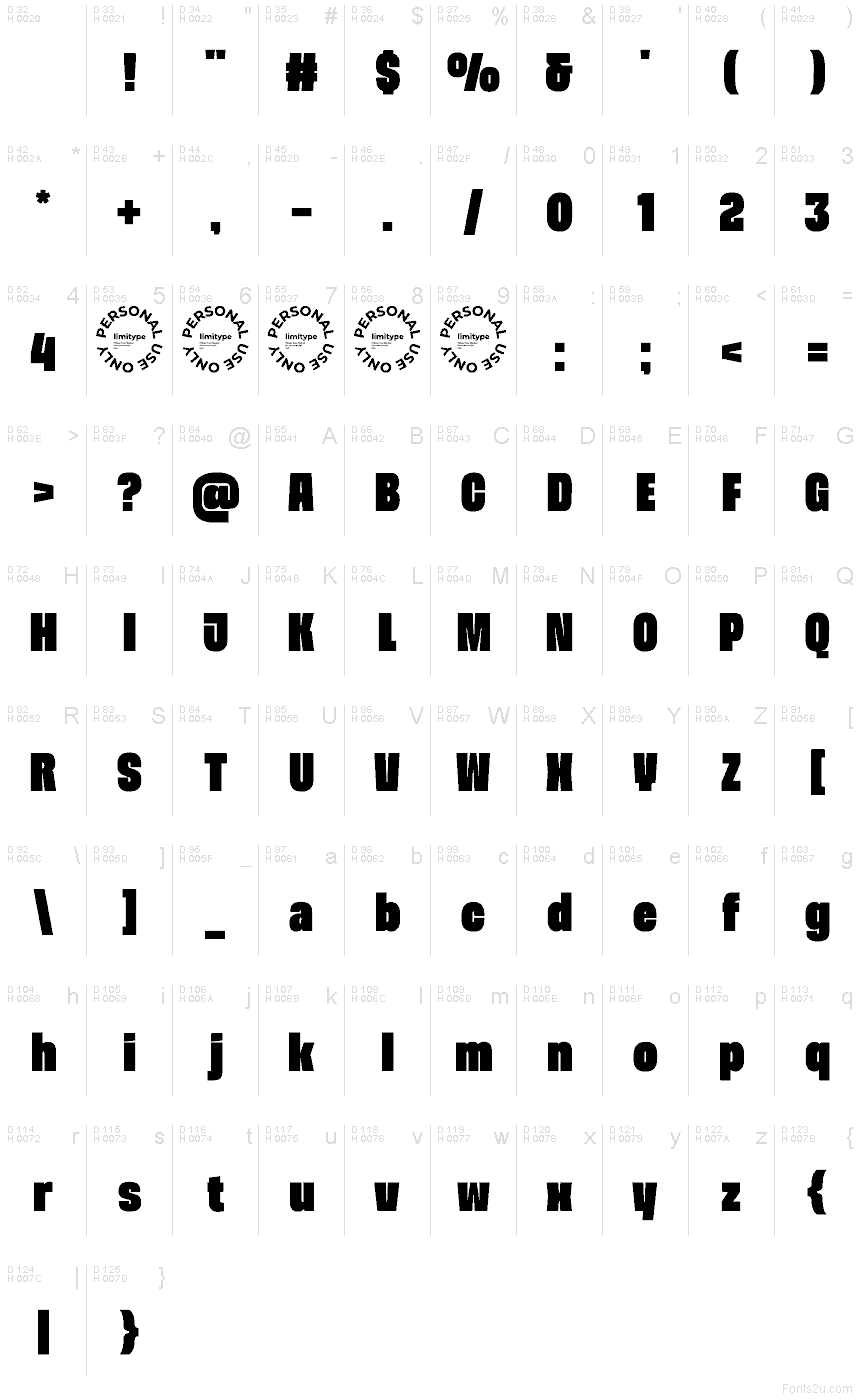
Moara Demo Bold
Moara Bold font by Limitype is a free bold sans serif typeface that hits like a headline stamp. Huge, blocky shapes and tight spacing pack each word with weight, while the slightly rounded corners keep it from feeling harsh or mechanical. The Moara family’s bold style has a solid, ink-heavy presence that feels almost printed—thick, grounded, and impossible to ignore on the page or screen.
Using Moara Bold, your titles don’t just stand out, they dominate the layout. This free font shines on posters, album covers, sports branding, streetwear graphics, bold logotypes, and punchy social media visuals. It works beautifully when set large and kept short, letting those chunky forms do the talking; pair it with a clean, light grotesque or geometric sans for body text to keep the focus on Moara’s massive, confident voice.